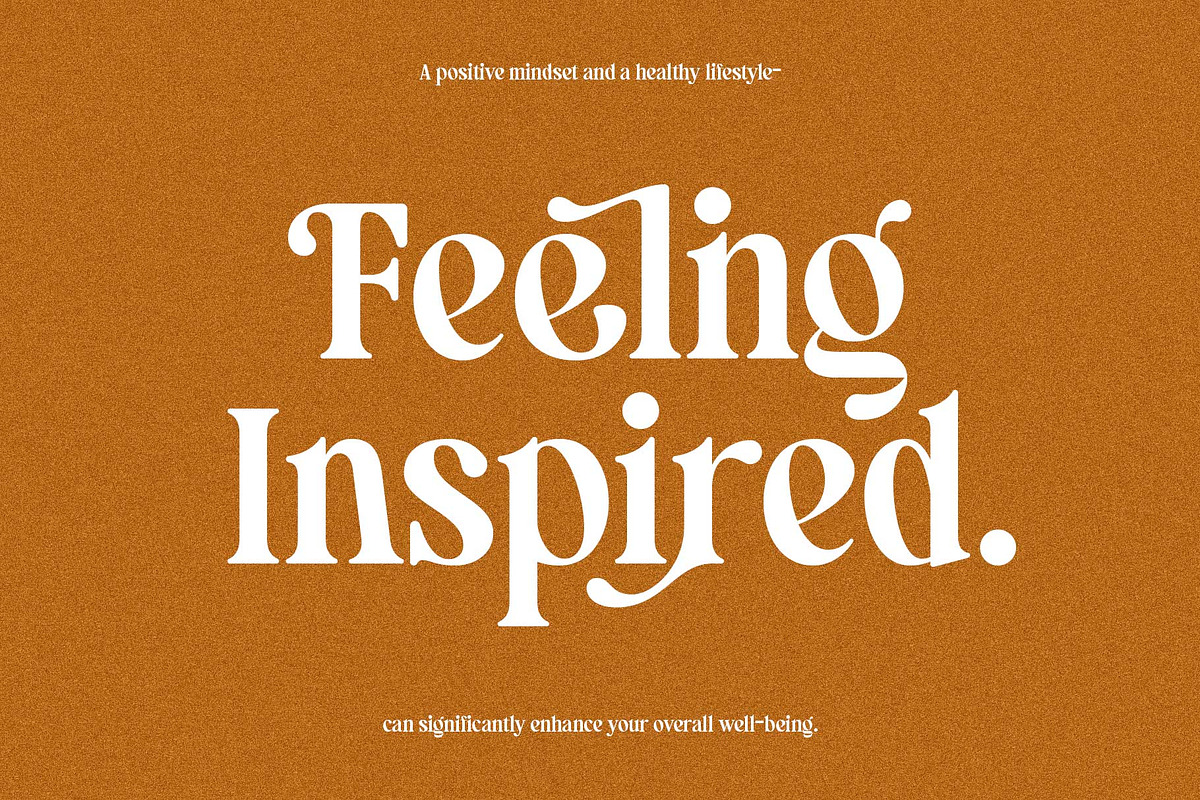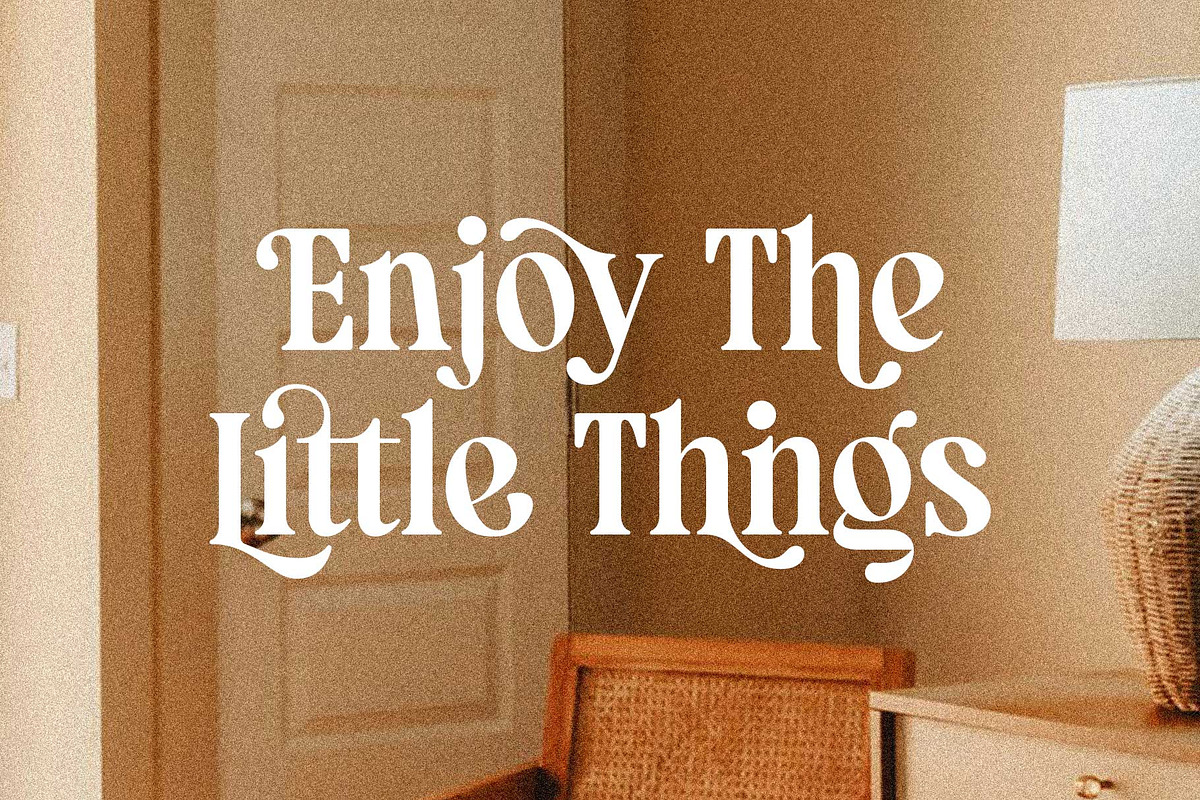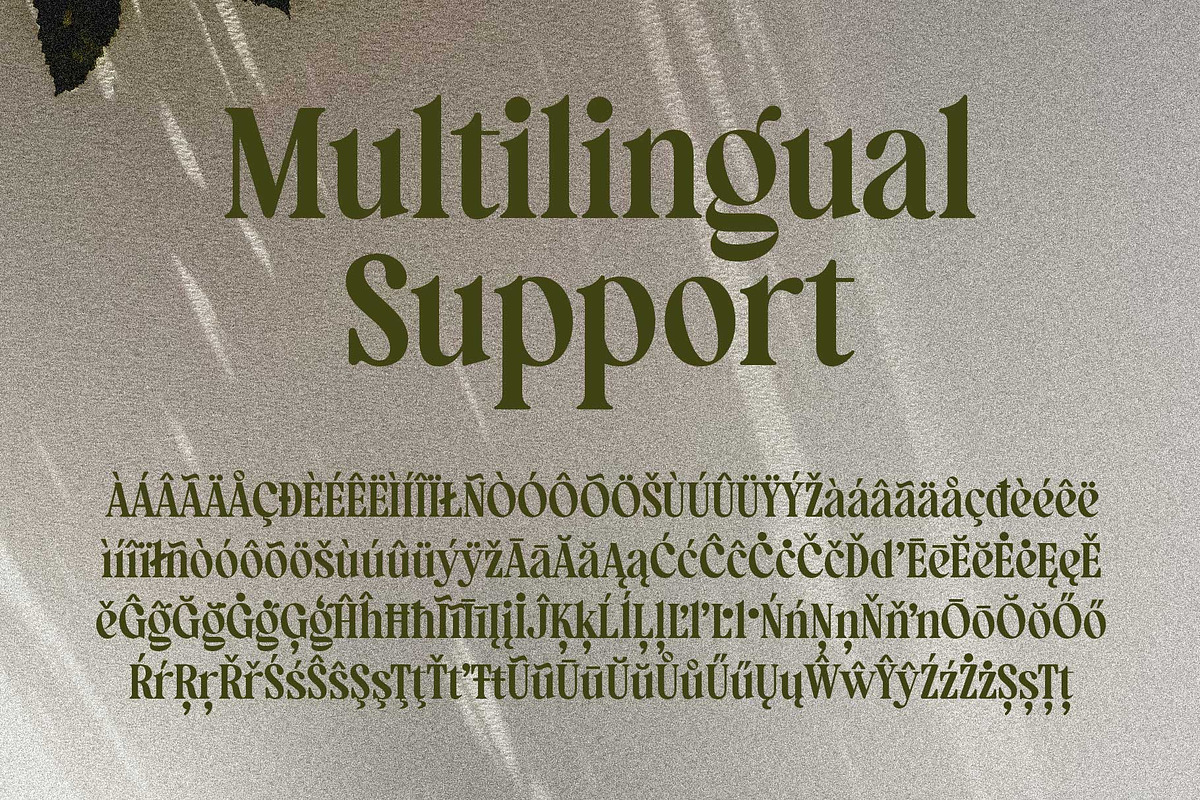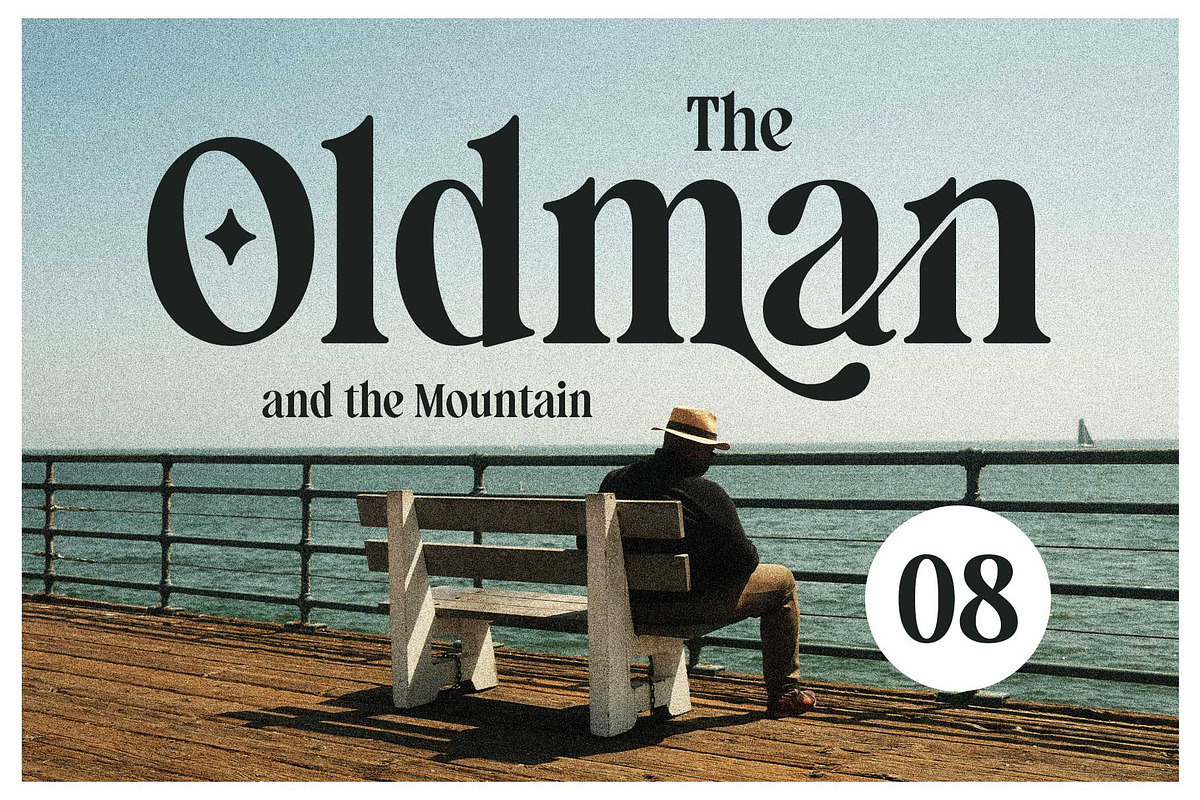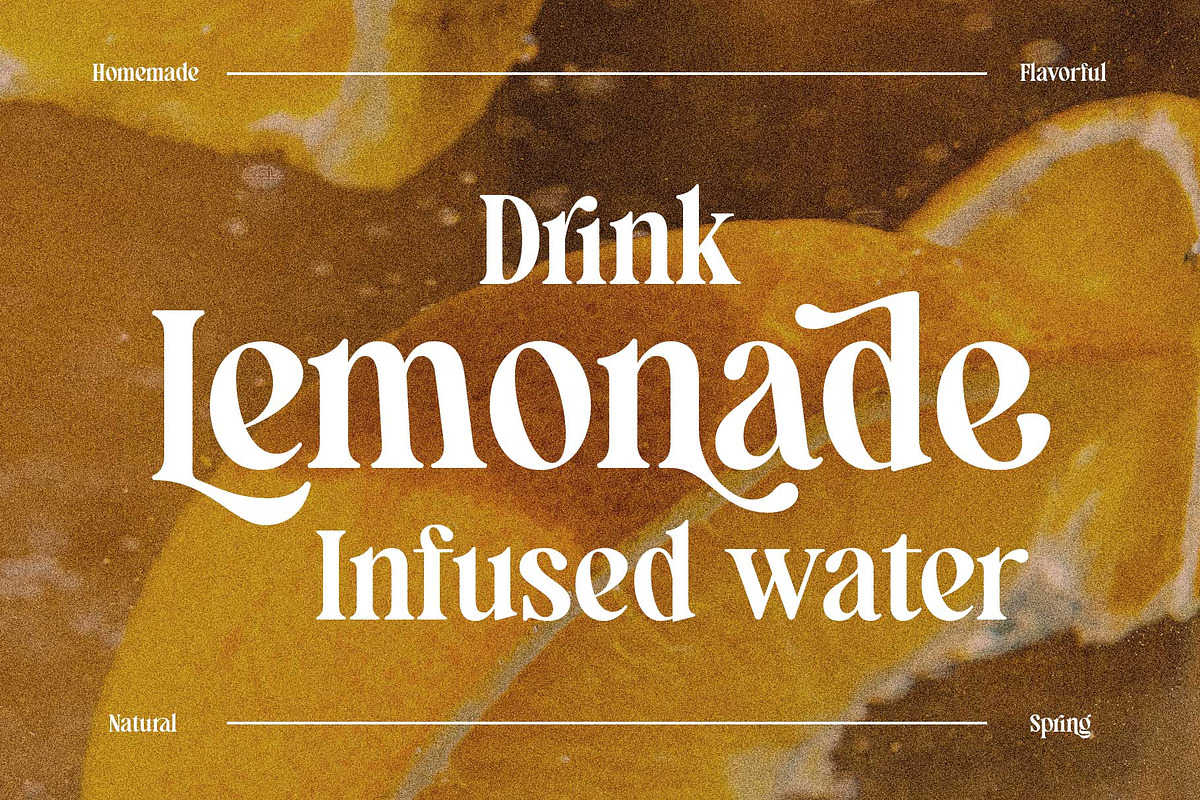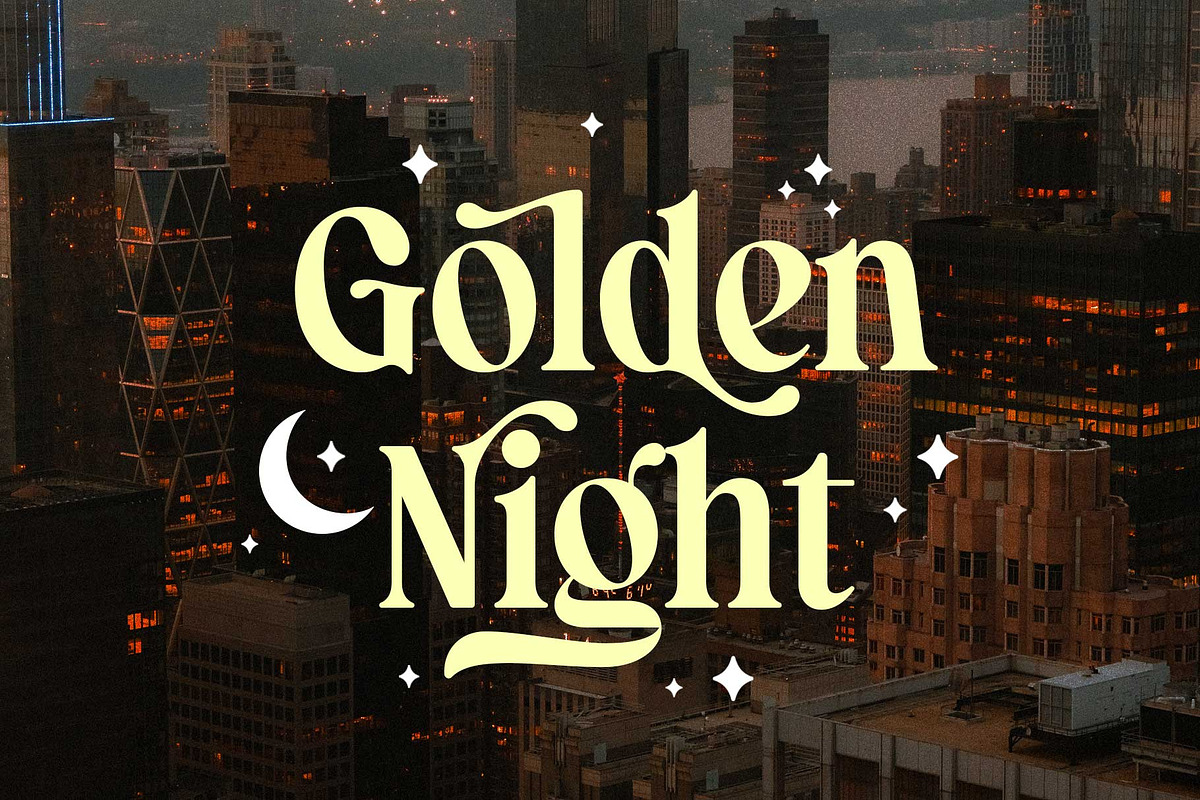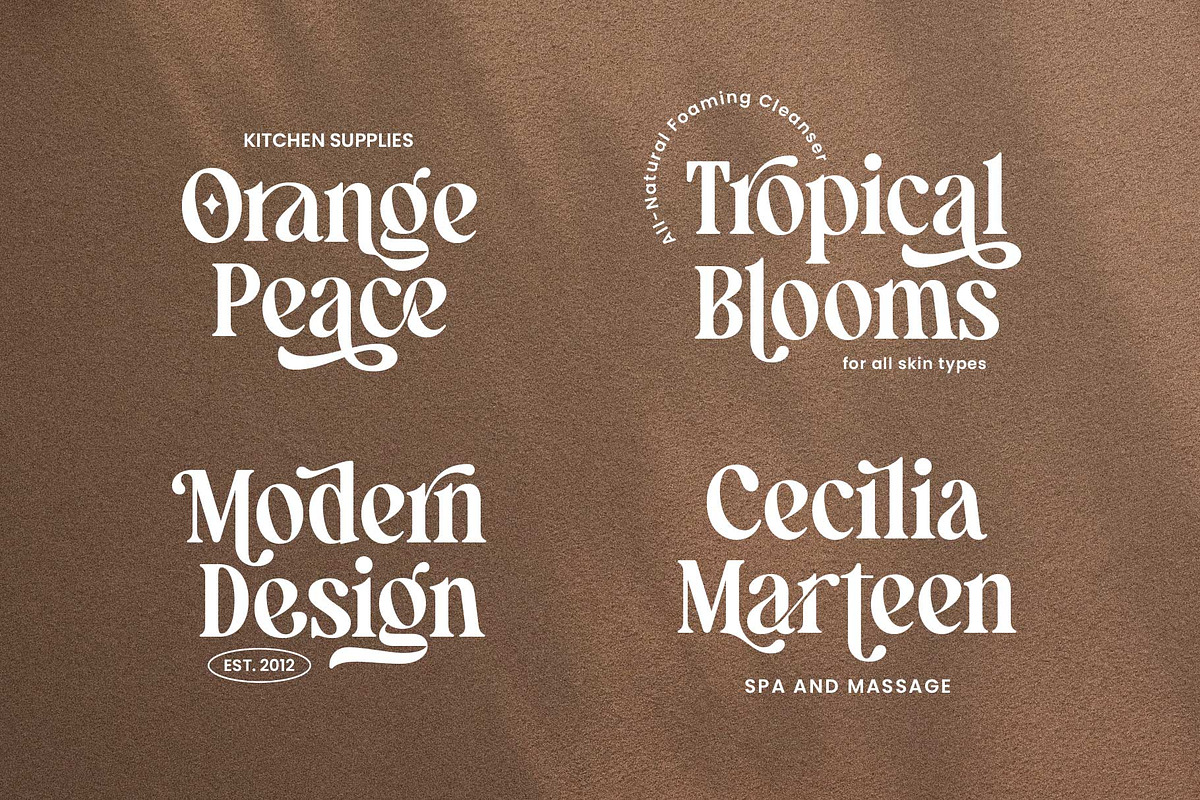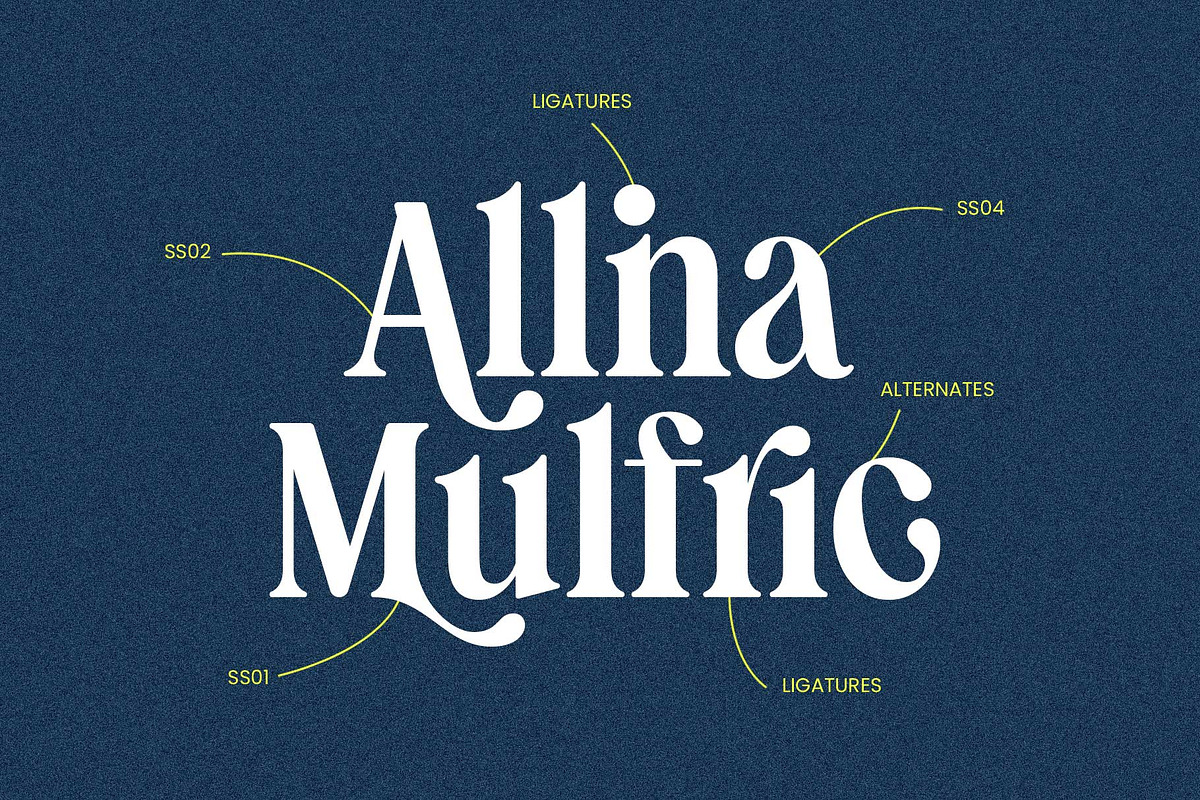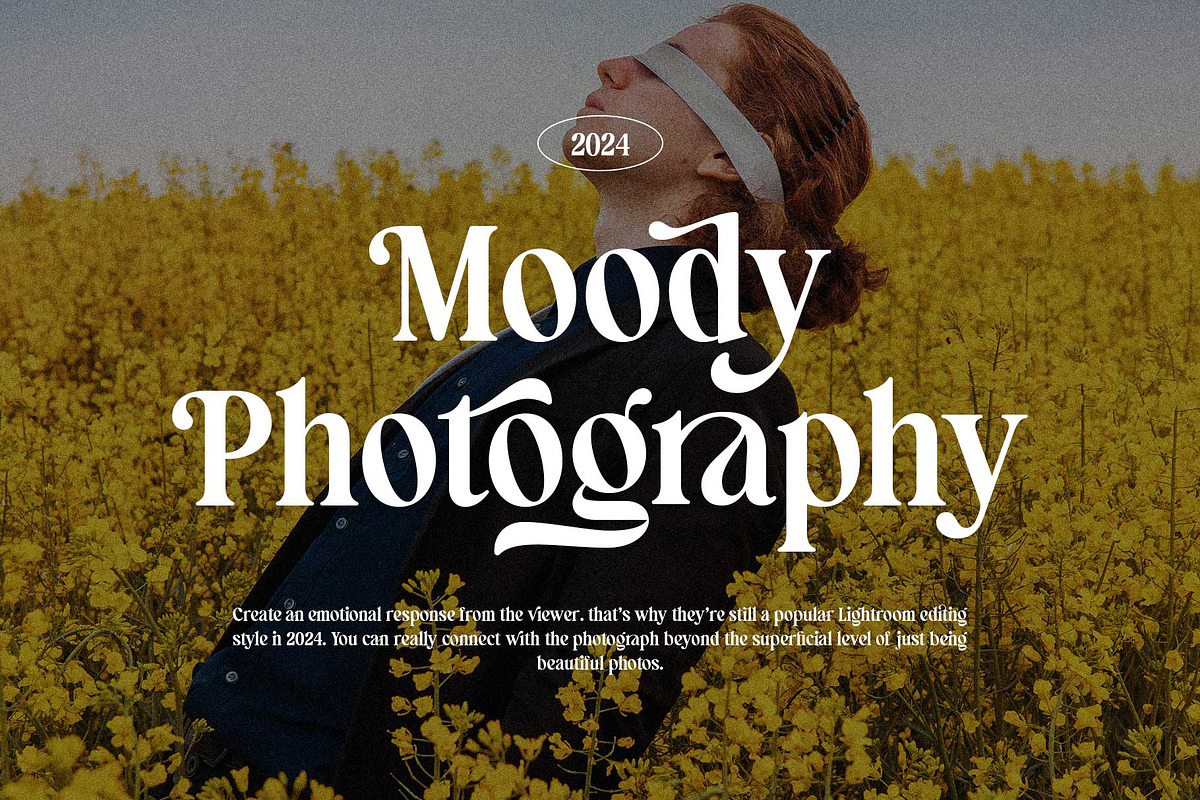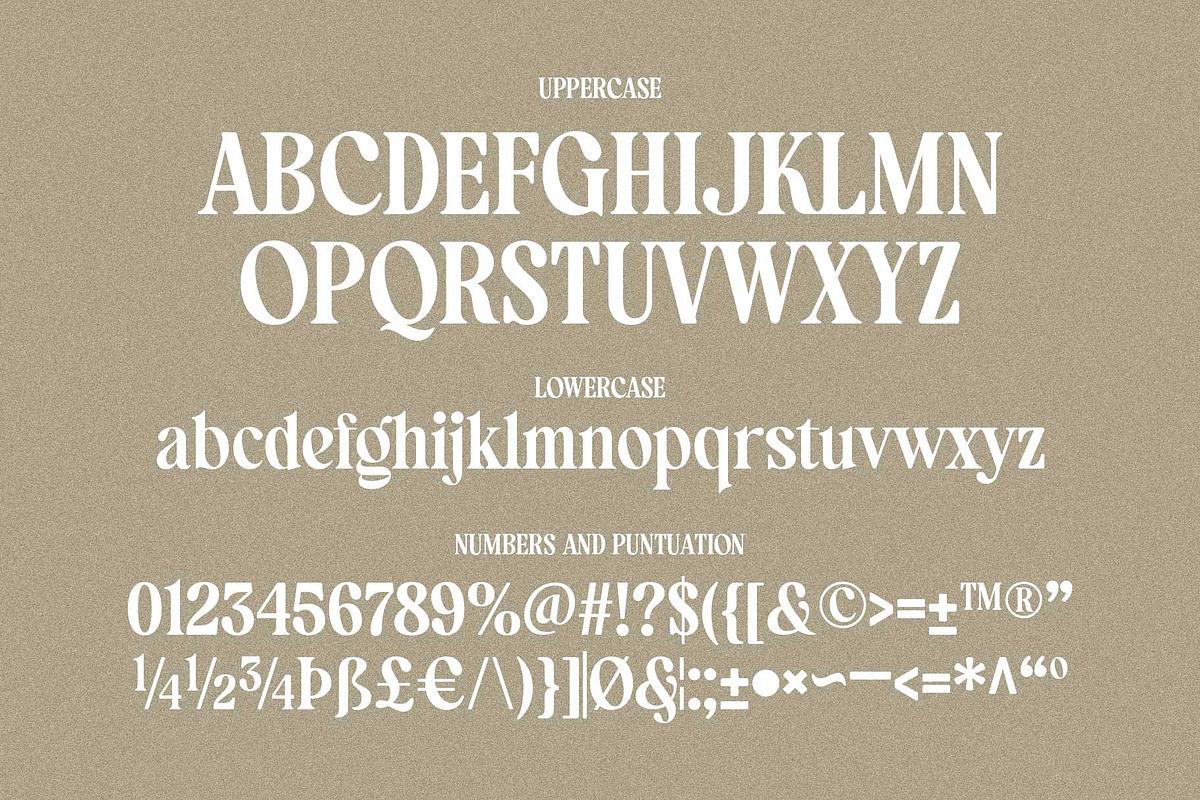
Manshera Romika - Modern Vintage
Introducing Manshera Romika, a modern classy bold serif font. Beautiful masterpiece with lots of special characters that brings you to a modern-vintage design with a sexy thick shape. This font represents a sophisticated touch, perfect for a minimalist theme, elegance, and cheerfulness. 500+ Glyphs worth for your design project!
Manshera Romika is equipped with custom ligatures and stylistic alternates that will make your design, even more, stand out and unique! Apply this beautiful font for logos, magazines, flyer, fashion, headline, clothing, website, branding, books, quotes greeting card, wedding, invitation, motion graphic,
Fonts featured :
- Punctuation & symbols
- Stylistic alternates
- Stylistic set 01-04
- Custom ligatures
- Multilingual support.